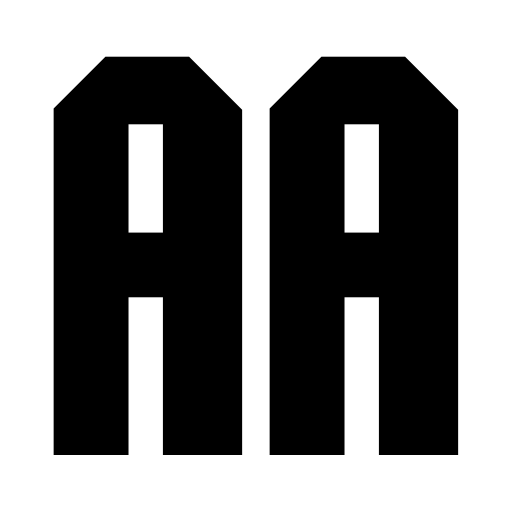
Broadcaster is a condensed sans serif font with a bold and narrow structure that conveys a strong, modern, and slightly futuristic vibe. Its tall x-height and clean, uniform stroke width create a geometric yet approachable appearance, making it ideal for impactful headlines, logos, and branding that demand attention without excess flair. This font works well in contexts where clarity and a distinctive urban or tech-inspired style are desired.
Broadcaster Font
About Broadcaster Font
| Font family | Broadcaster Font |